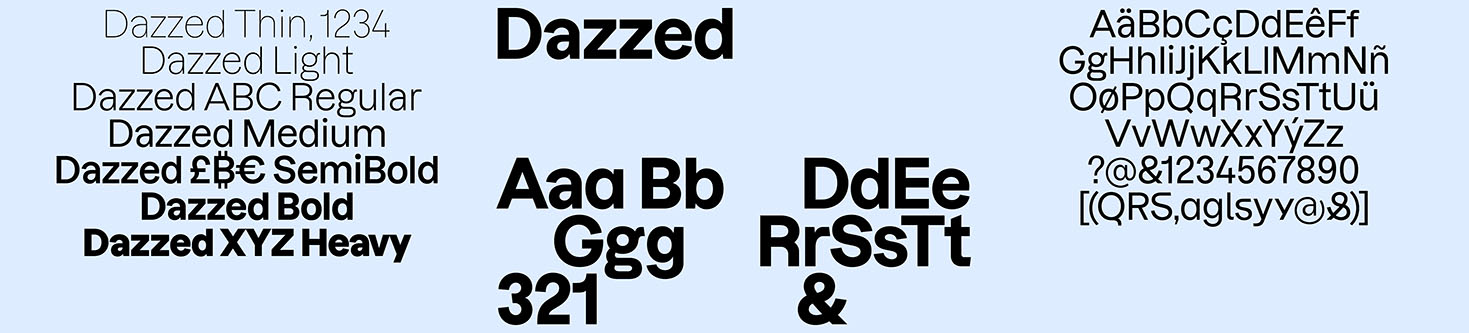
Dazzed Font
Dazzed Font is perfect for entertainment branding, nightlife venues, glamorous event invitations, fashion show materials, luxury party promotions, dazzling product launches, sparkly cosmetics packaging, celebration graphics, high-energy advertising campaigns, festive social media content, glitzy magazine headlines, and spectacular event signage.
What makes Dazzed Font exciting is its electrifying glamour that captures the essence of dazzling entertainment and spectacular celebration through brilliant letterforms that shimmer with star-quality appeal and magnetic energy. This spectacular typeface embodies the thrill of show business and glamorous excitement, combining bold presence with sparkling sophistication that resonates with audiences seeking luxury experiences and unforgettable entertainment moments. The font's luminous character and dynamic energy create immediate fascination while maintaining the clarity essential for high-impact commercial applications. Its dazzling personality makes it perfect for brands that want to communicate excitement, luxury, and the transformative power of spectacular experiences and glamorous entertainment.
The Dazzed Font family includes regular, medium, and bold weights, featuring glamorous alternates, sparkling ligatures, and dazzling decorative elements. The character set incorporates glitzy symbols, spectacular numerals, and electrifying punctuation marks that enhance the font's dazzling character and provide designers with comprehensive entertainment typography solutions for glamorous brand expressions.
Whether you're developing entertainment brand identities, creating glamorous marketing materials, or designing spectacular communications, Dazzed Font Free Download provides the electrifying glamour your dazzling projects require. This premium typeface excels in applications where excitement and luxury positioning are crucial for brand differentiation and audience engagement in competitive entertainment and luxury markets. The font's spectacular qualities work magnificently across event materials, promotional signage, and digital platforms, making it an invaluable asset for designers serving entertainment and luxury industries. Entertainment venues and glamorous brands choose this font for its ability to communicate dazzling excitement while maintaining professional appeal and market credibility. The comprehensive character support includes entertainment symbols and glamorous glyphs, expanding its versatility for global entertainment applications and multilingual spectacular communications. Professional designers appreciate its perfect balance of glamorous impact and functional clarity, ensuring projects remain both visually stunning and practically effective for entertainment audiences. When you implement this exceptional typeface in your glamorous communications, you're selecting a typography solution that celebrates spectacular entertainment and dazzling luxury, ensuring your brand connects with audiences seeking unforgettable experiences while maintaining the glamorous credibility essential for success in competitive entertainment markets and luxury industries that create memorable moments, inspire excitement, and deliver the kind of dazzling experiences that leave lasting impressions on discerning audiences seeking premium entertainment and luxury lifestyle experiences.